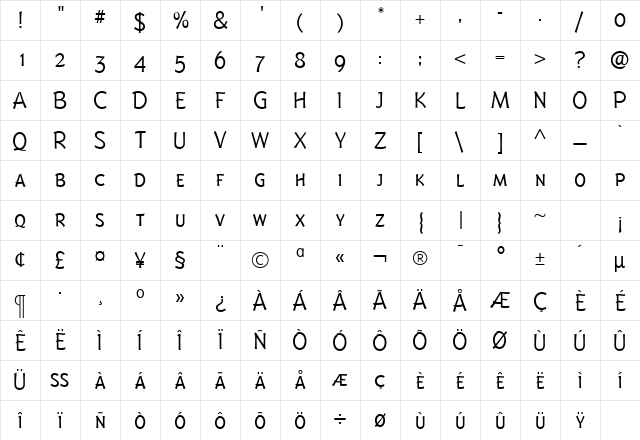
BadgerLightExpert Roman Free Font
BadgerLightExpert Roman
Style: Roman
Complete BadgerLightExpert Roman glyph index. Displaying only characters natively supported by BadgerLightExpert Roman font.
Design Context for BadgerLightExpert
BadgerLightExpert is a composed and adaptable typeface that performs quietly and consistently across a wide range of design contexts. Its slender proportions lend an understated elegance to any composition.